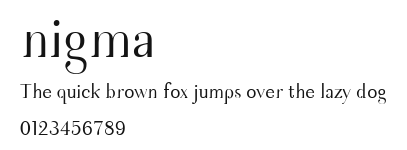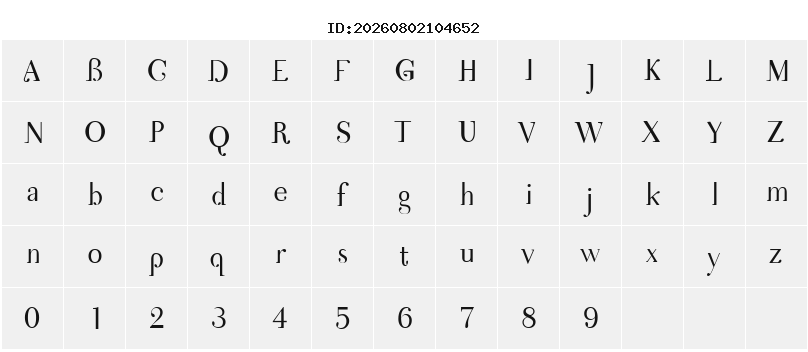
About nigma.ttf
nigma.ttf is a modern, elegant sans-serif font designed for ultimate readability and visual harmony. Perfect for branding, headlines, web design, and print materials.